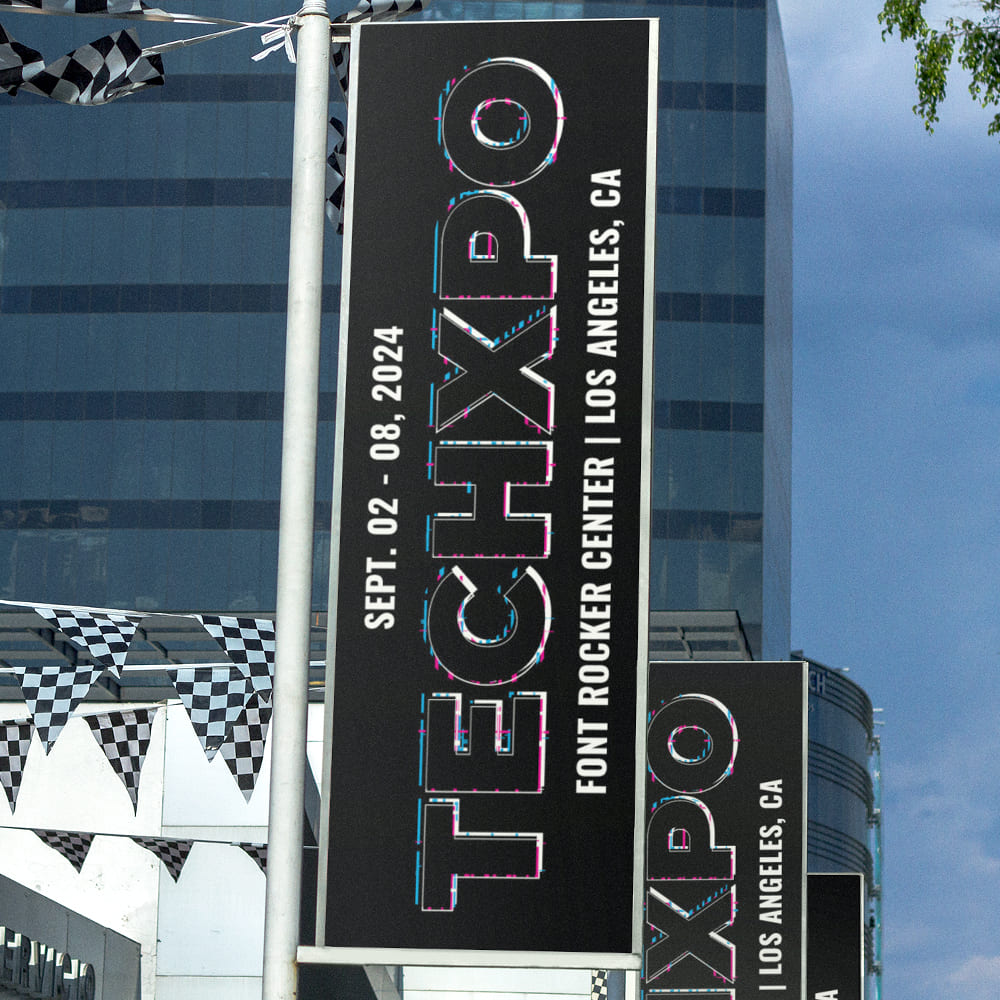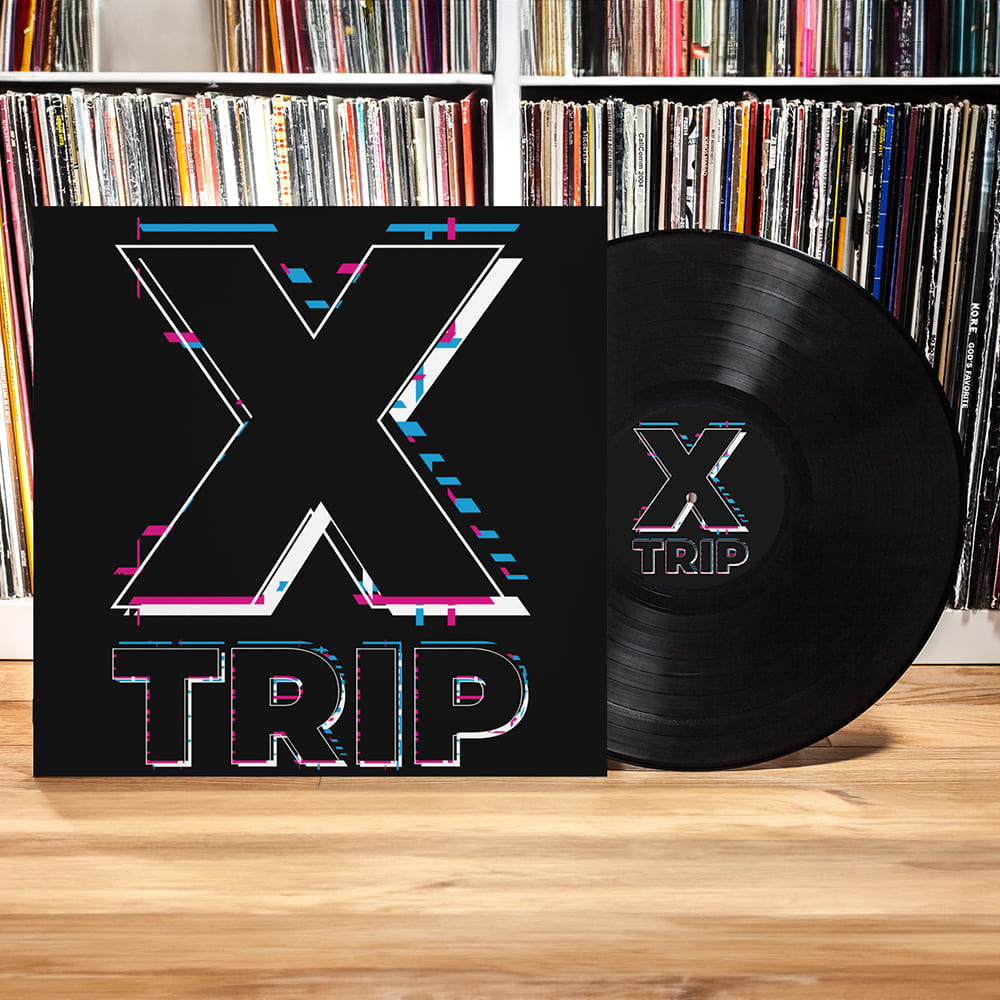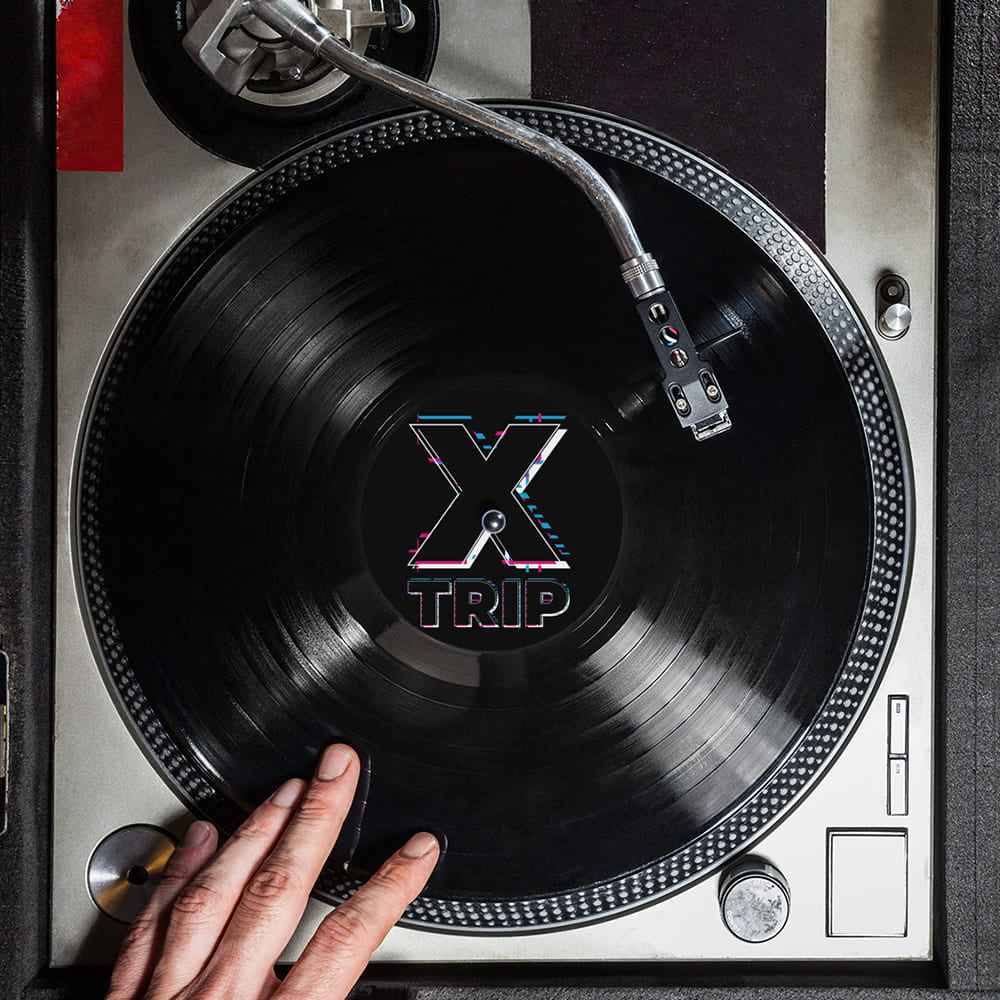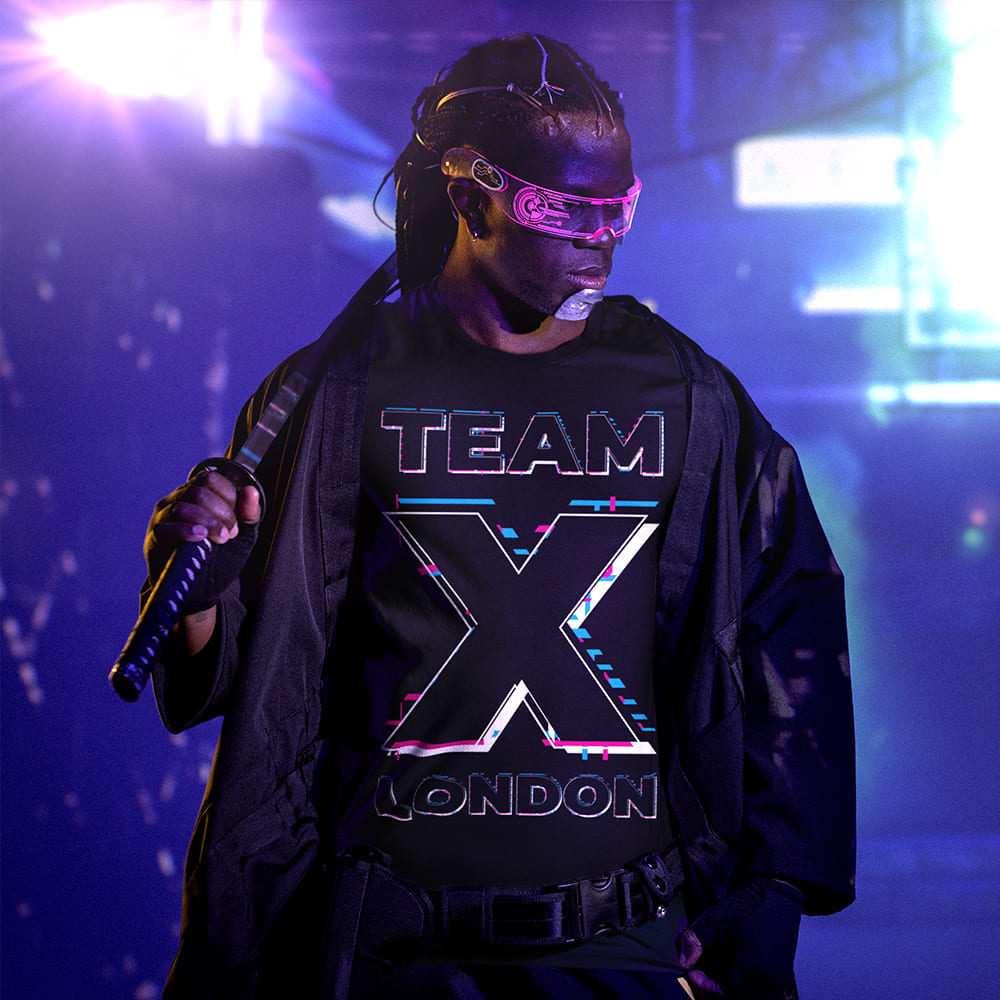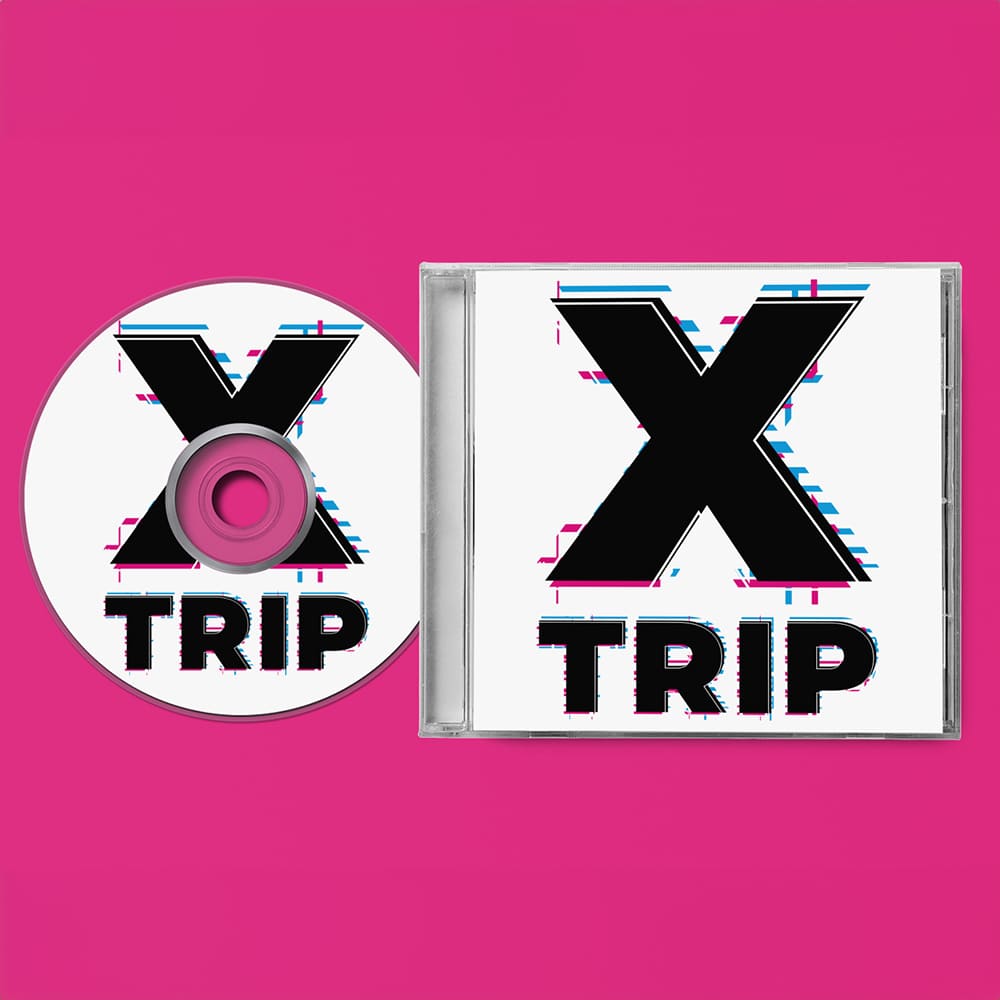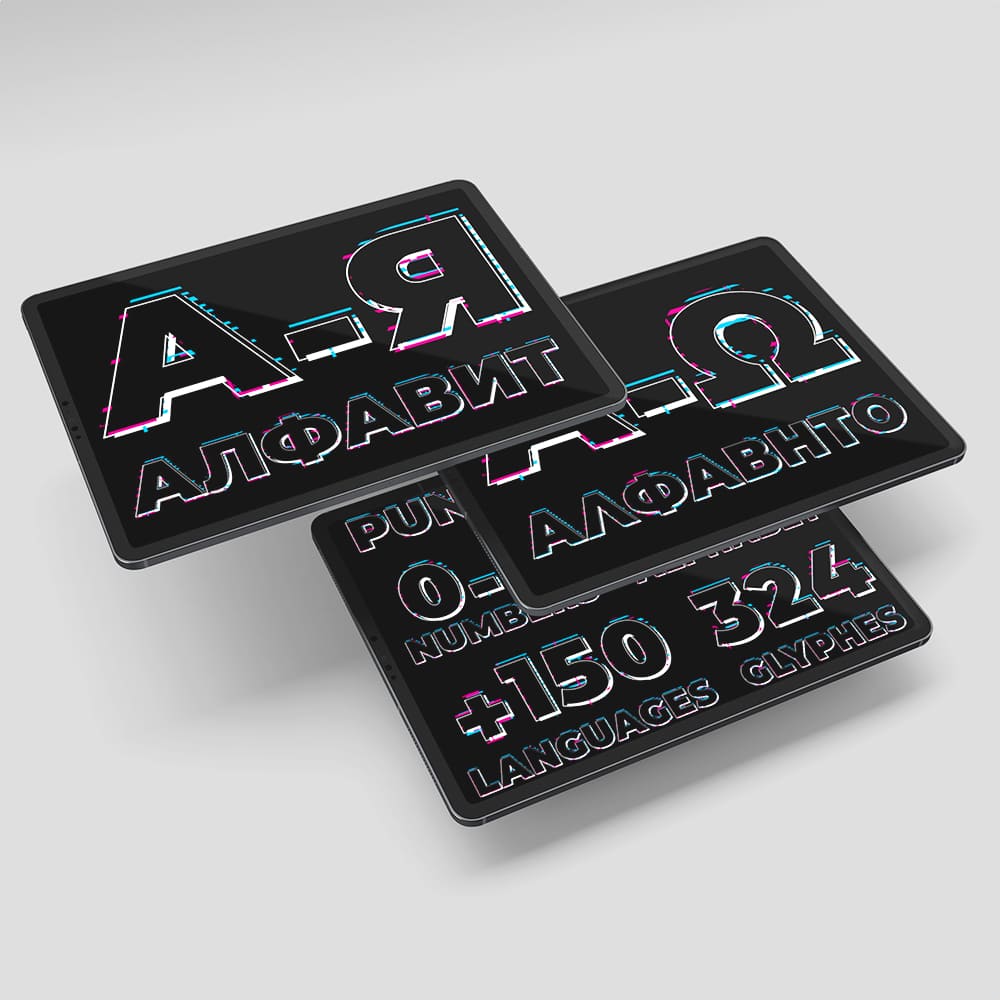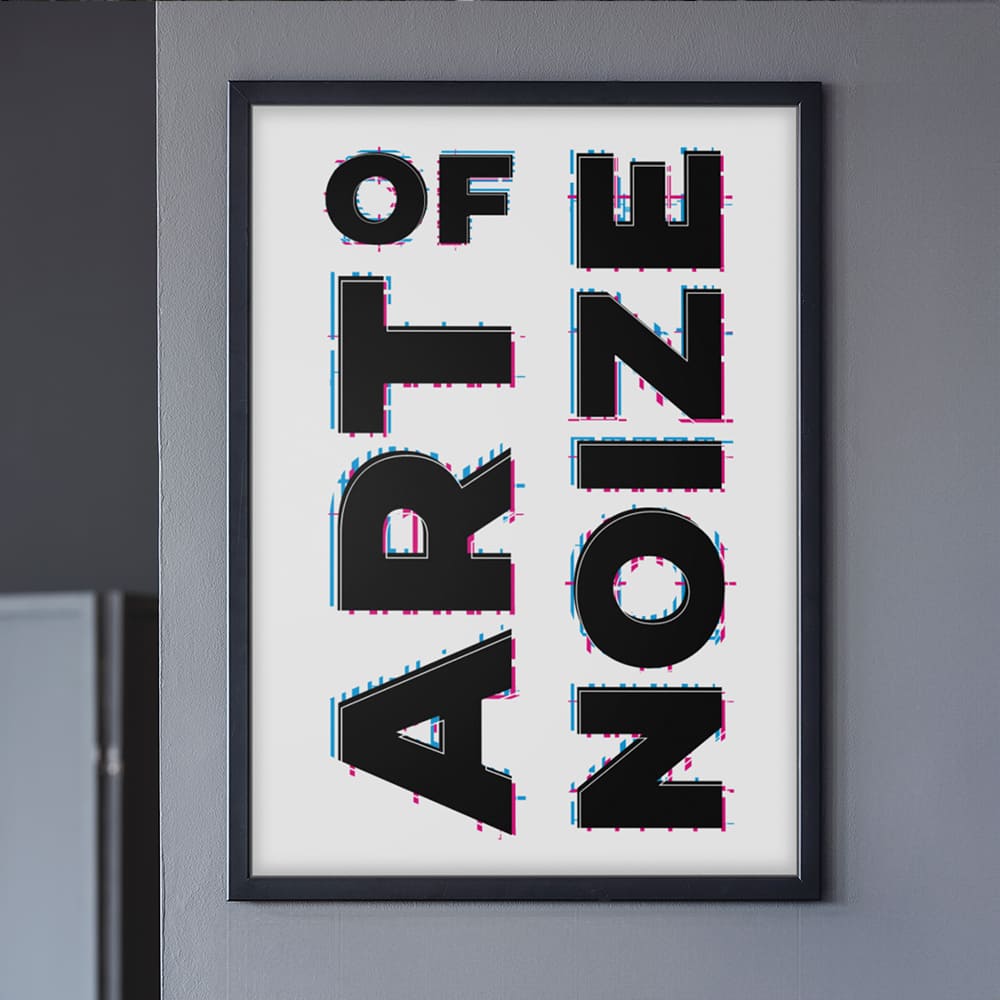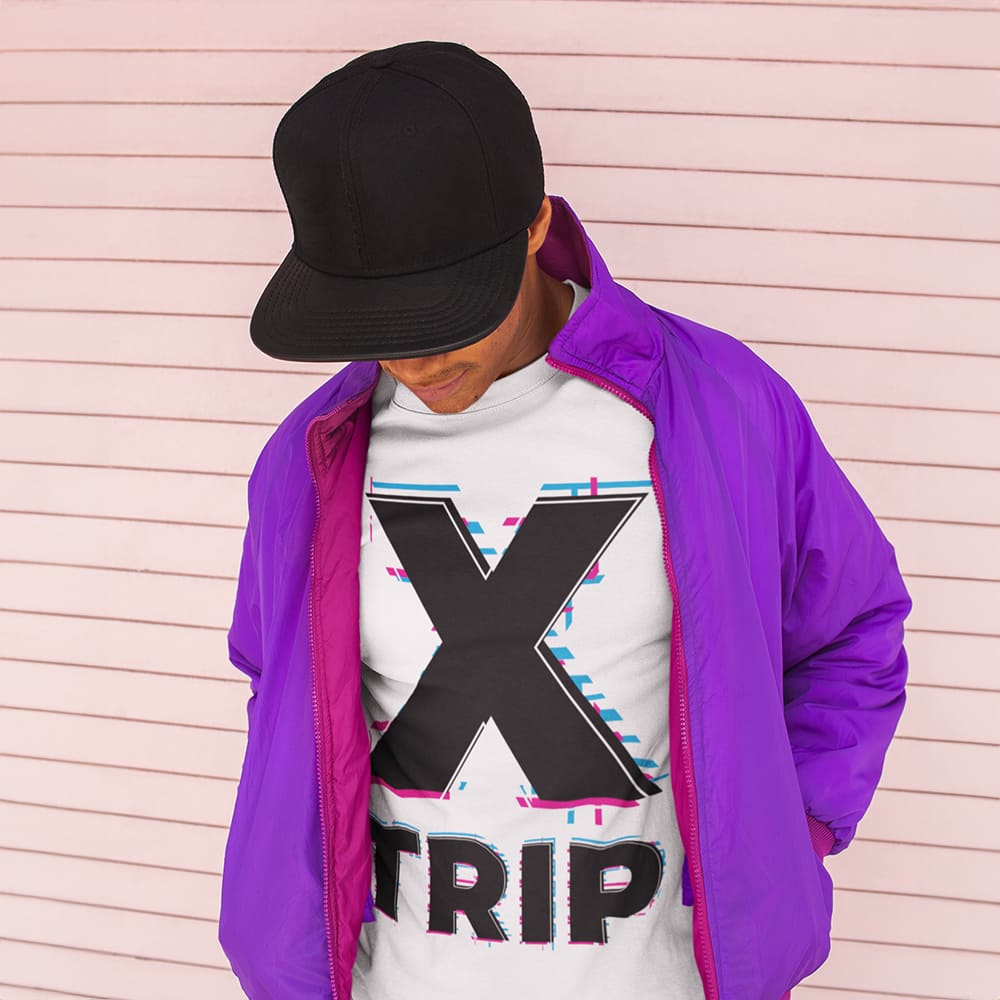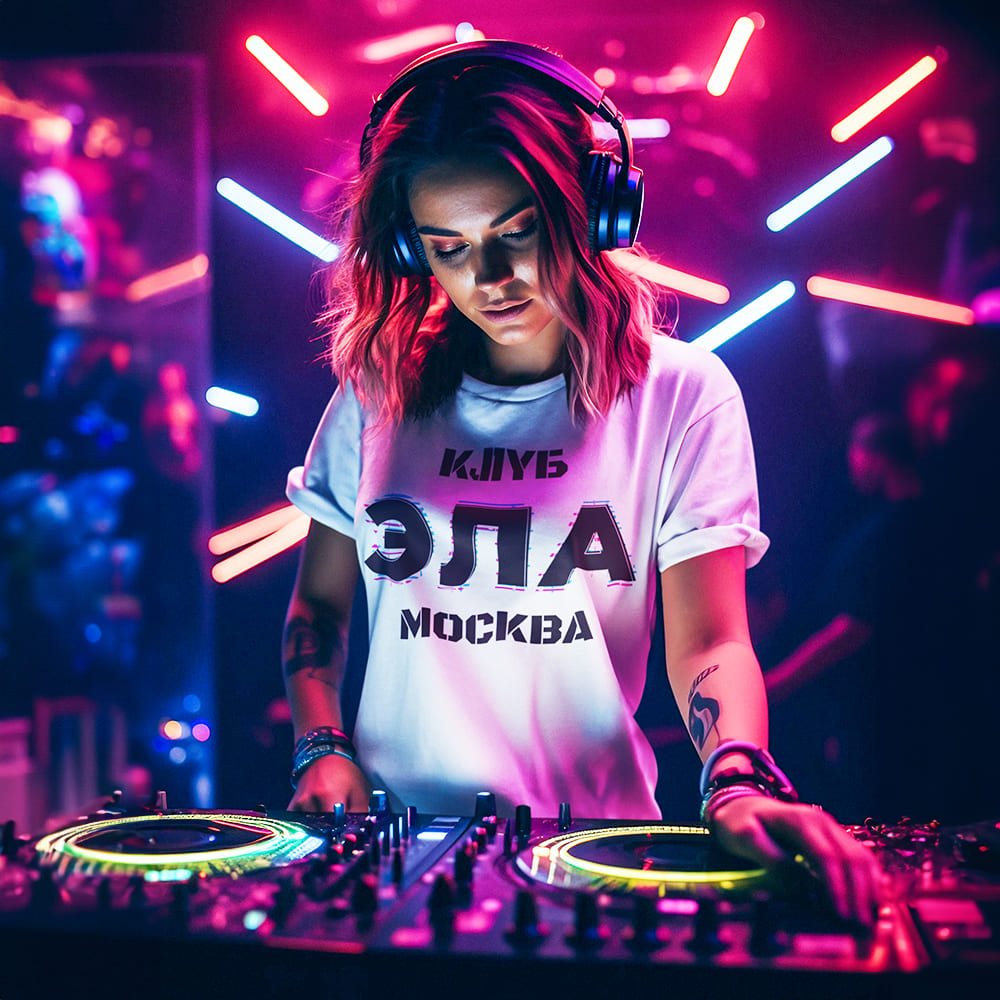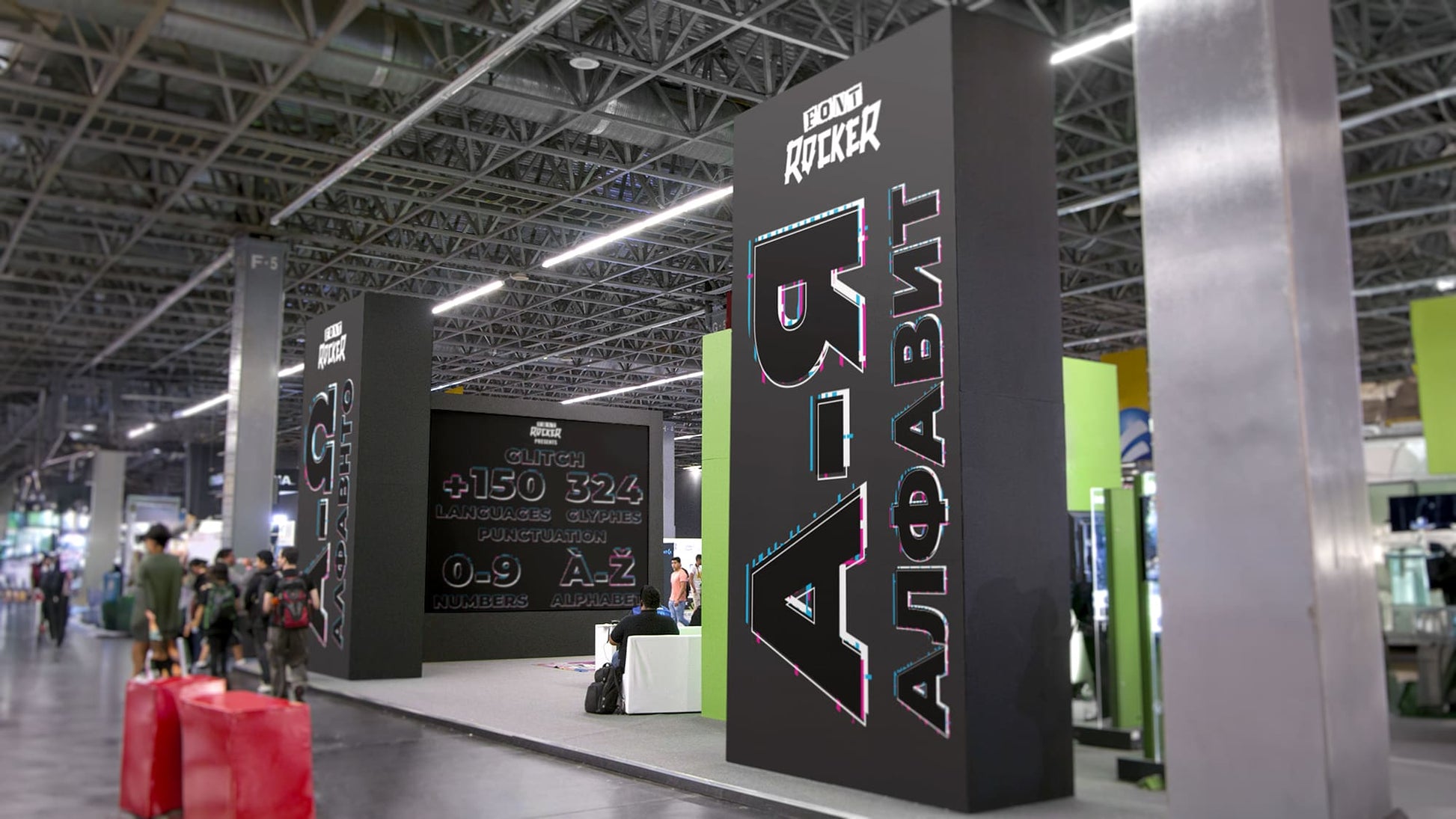
Glitch Brix Font
Distorted, Digital, Out of Control 🎮⚡🕹️
Welcome to the glitch zone – where pixels flicker, code breaks, and reality shatters into pieces! The Glitch Brix Font looks like it just escaped from a corrupted arcade machine or a hacked computer terminal. Inspired by the Matrix, digital dimensions, and fractured cyber worlds, this font delivers a chaotic, futuristic vibe straight into your design.
Why Choose the Glitch Brix Font?
🔹 Hack the System! – Perfect for designs that look like they’ve been caught in a data stream glitch or dropped from another dimension.
🔹 Arcade Meets Cyberspace – With sharp edges, digital distortions, and a touch of retro pixel aesthetics, this font feels like a trip through 80s arcade halls and futuristic hacking realms.
🔹 High-Tech & Next Level – Whether for gaming logos, tech events, EDM flyers, or cyberpunk designs, this font gives your project the ultimate digital edge.
🔥 EVERY FONT ROCKER FONT COMES WITH 325 GLYPHS & SUPPORTS OVER 100+ LANGUAGES WORLDWIDE, INCLUDING CYRILLIC, GREEK & MORE.
Welcome to Digital Chaos!
Forget boring fonts – Glitch Brix is unpredictable, loud, and full of digital anarchy! Your design will look like it just survived a system crash in style – wild, distorted, and unstoppable.
🔹 Hack the look. Distort reality. Choose the Glitch Brix Font. 🎮⚡🕹️💻